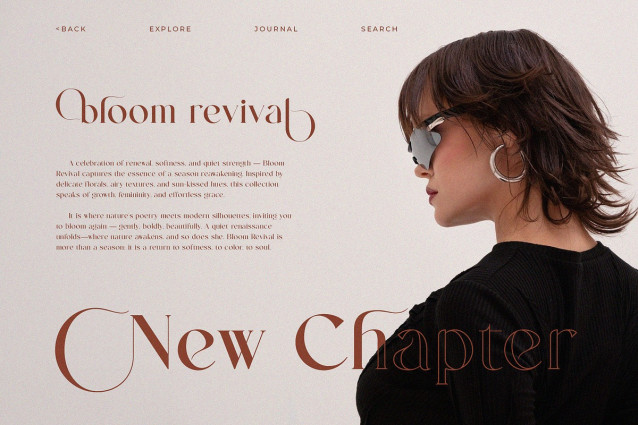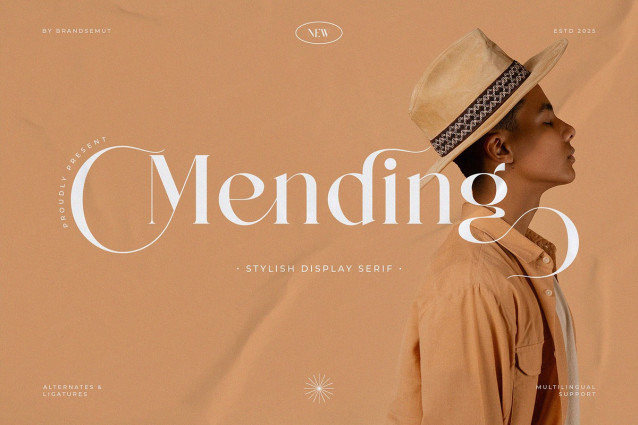
Mending Font
Mending Font – Stylish Display Serif Font with Uppercase & Lowercase, Swashes & Ligatures for Fashion Branding & Editorial Use
Mending is a stylish and elegant display serif font designed with expressive swashes and refined ligatures that give your typography a distinctive personality. Featuring full uppercase and lowercase characters, Mending is perfect for branding, editorial titles, social media visuals, product packaging, and wedding invitations that demand elegance with flair.
With its graceful contrast and artistic letterforms, Mending brings a harmonious blend of tradition and modernity — ideal for creative professionals looking to elevate their design.